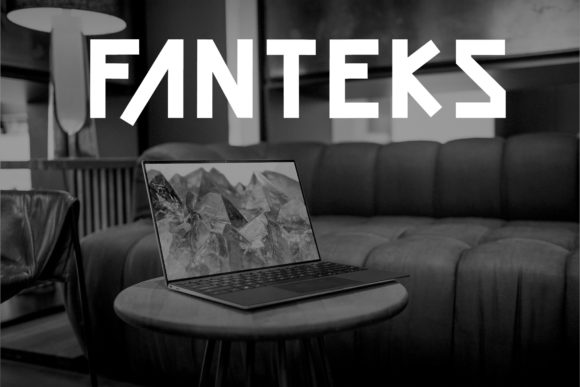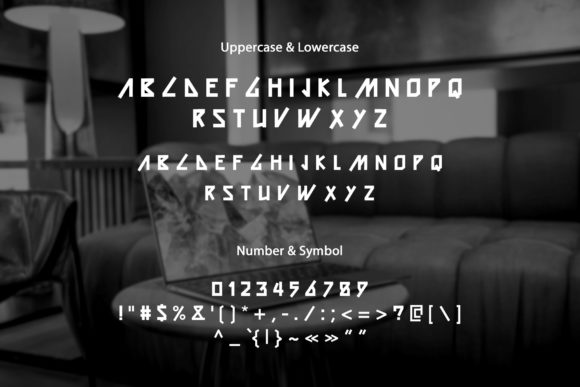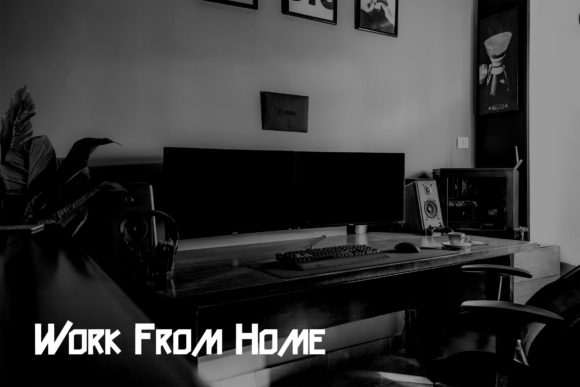
Fanteks Font: The Ultimate Modern and Edgy Display Font for Your Creative Projects
In the world of design, fonts play a crucial role in conveying the message and tone of a project. A well-chosen font can elevate your design, making it more engaging, readable, and memorable. If you’re a designer or crafter looking for a modern and edgy display font to take your projects to the next level, look no further than Fanteks Font. In this article, we’ll explore the features, benefits, and uses of Fanteks Font, and why it’s an excellent addition to your font collection.
What is Fanteks Font?
Fanteks Font is a modern and edgy display font designed to make a statement. Its unique and bold style makes it perfect for branding materials, business cards, quotes, posters, and many more creative projects. With Fanteks Font, you can add a touch of sophistication and edge to your designs, capturing everyone’s attention.
Key Features of Fanteks Font
• Modern and Edgy Style: Fanteks Font boasts a sleek and contemporary design, perfect for designers and crafters who want to create bold and eye-catching projects.
• High Versatility: This font is suitable for a wide range of creative projects, from branding materials and business cards to quotes, posters, and more.
• Easy to Read: Despite its edgy style, Fanteks Font is highly legible, making it perfect for use in both digital and print materials.
• Customizable: Fanteks Font can be easily customized to fit your project’s tone and style, making it a versatile addition to your font collection.
Benefits of Using Fanteks Font
So, why should you choose Fanteks Font for your creative projects? Here are just a few benefits:
• Stand Out from the Crowd: With Fanteks Font, you can create designs that stand out from the crowd and grab attention.
• Professional and Sophisticated Look: Fanteks Font adds a touch of sophistication and professionalism to your designs, making them perfect for business and branding projects.
• Time-Saving: With Fanteks Font, you can create stunning designs quickly and easily, saving you time and effort.
How to Use Fanteks Font in Your Creative Projects
Using Fanteks Font in your creative projects is easy. Here are a few ideas to get you started:
• Branding Materials: Use Fanteks Font to create bold and eye-catching branding materials, such as logos, business cards, and letterheads.
• Posters and Flyers: Add a touch of edginess to your posters and flyers with Fanteks Font, making them perfect for advertising and promotional campaigns.
• Social Media Graphics: Use Fanteks Font to create stunning social media graphics, such as Facebook and Twitter headers, that grab attention and drive engagement.
• Quotes and Typography: Create inspiring quotes and typography with Fanteks Font, perfect for use in blogs, websites, and social media channels.
In conclusion, Fanteks Font is an excellent addition to any designer’s or crafter’s font collection. Its modern and edgy style, high versatility, and ease of use make it perfect for a wide range of creative projects. With Fanteks Font, you can create stunning designs that capture everyone’s attention, convey your message effectively, and elevate your brand. So why wait? Download Fanteks Font today and take your creative projects to the next level!